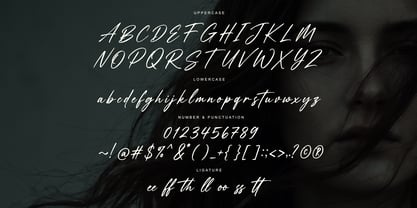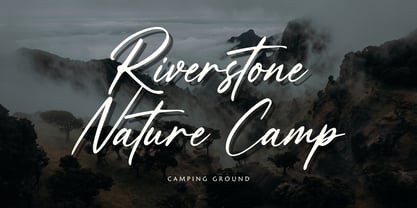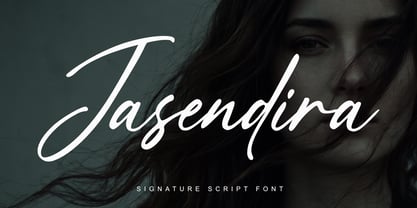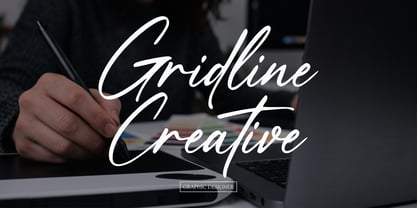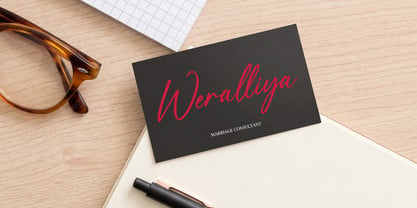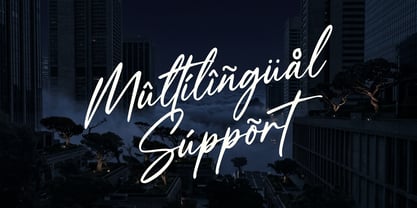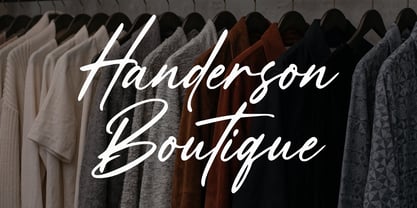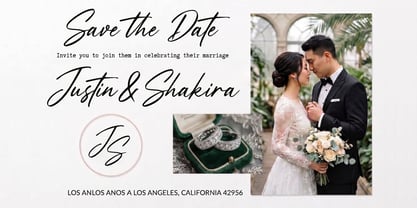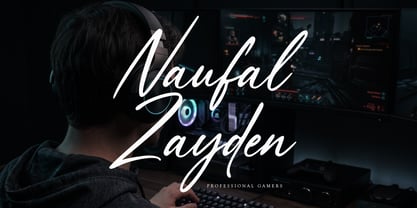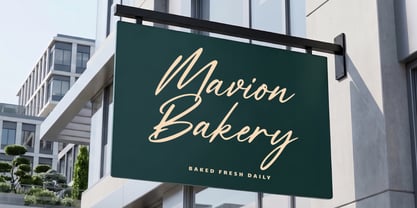
Jasendira
The Jasendira Font Family was designed by Saiful Anwar and published by Sealoung. Jasendira contains 1 styles. More about this family
Jasendira Signature Script is an elegant handwritten font with a smooth, flowing signature style. Designed with refined curves and balanced strokes, this typeface delivers a modern, classy, and stylish look across a wide range of creative projects.
Its natural rhythm and clean structure make it highly versatile while maintaining a strong visual presence.
Key Features:
• Elegant signature style
• Smooth and natural flow
• ligatures
• Clean, modern, and professional appearance
• Highly readable with artistic character
Perfect For:
• Logo and branding
• Fashion and boutique design
• Wedding invitations
• Social media content
• Photography watermark
• Product packaging
• Quotes and typography layouts
• Uppercase & lowercase
• Numbers & punctuation
• Multilingual support